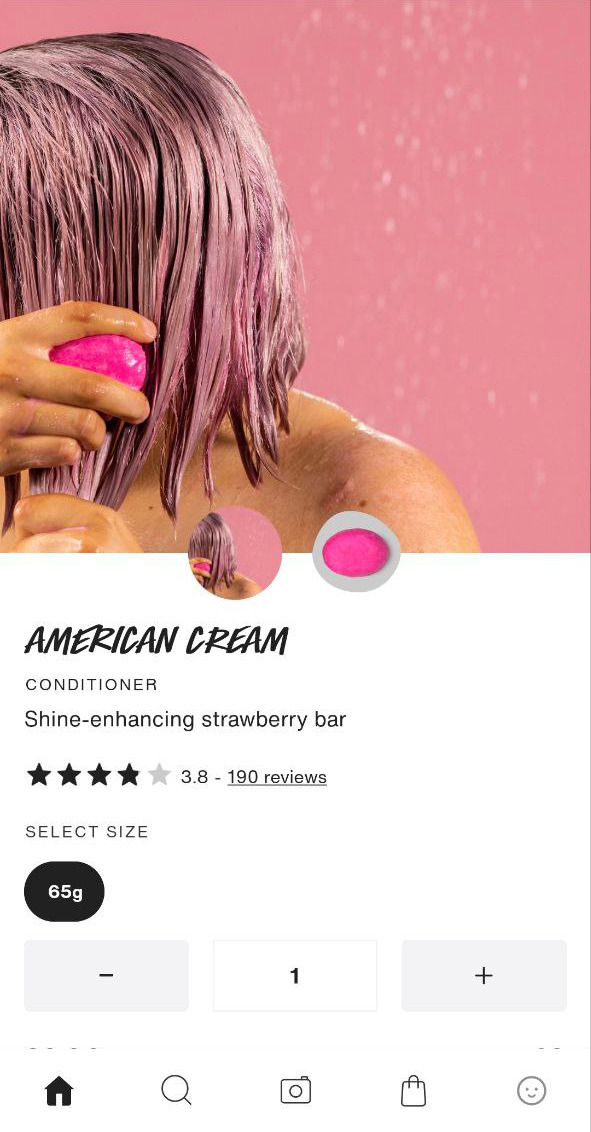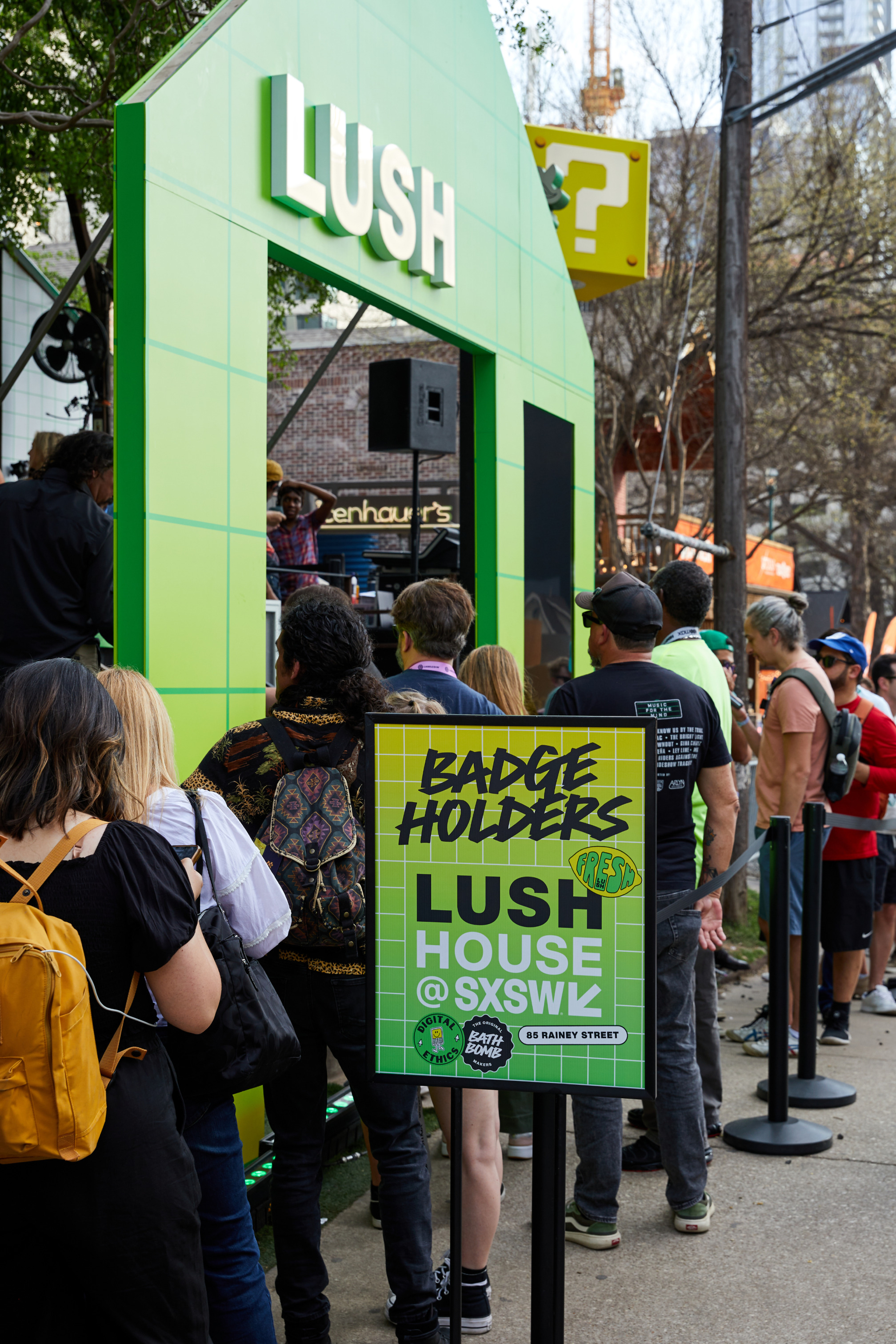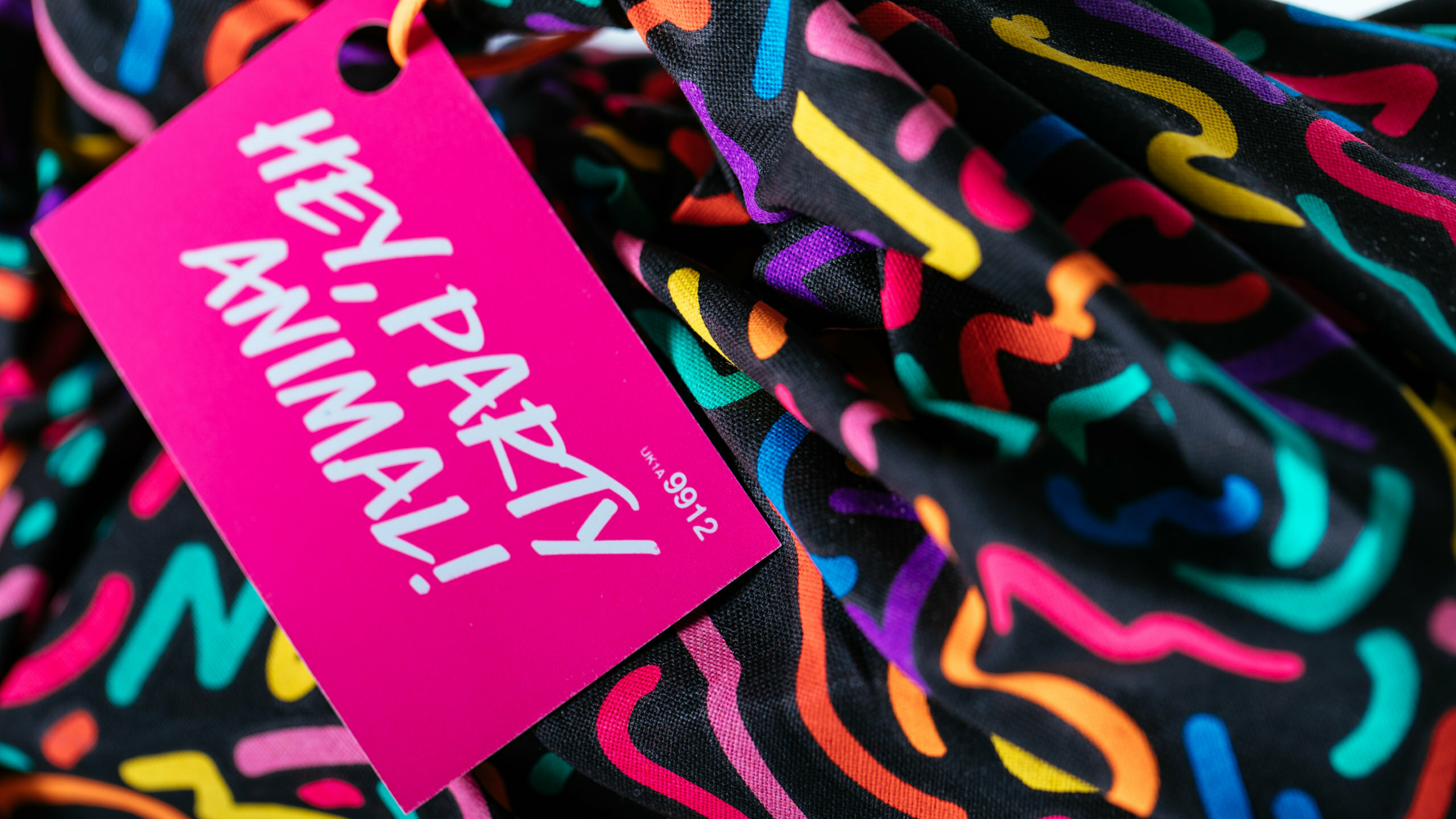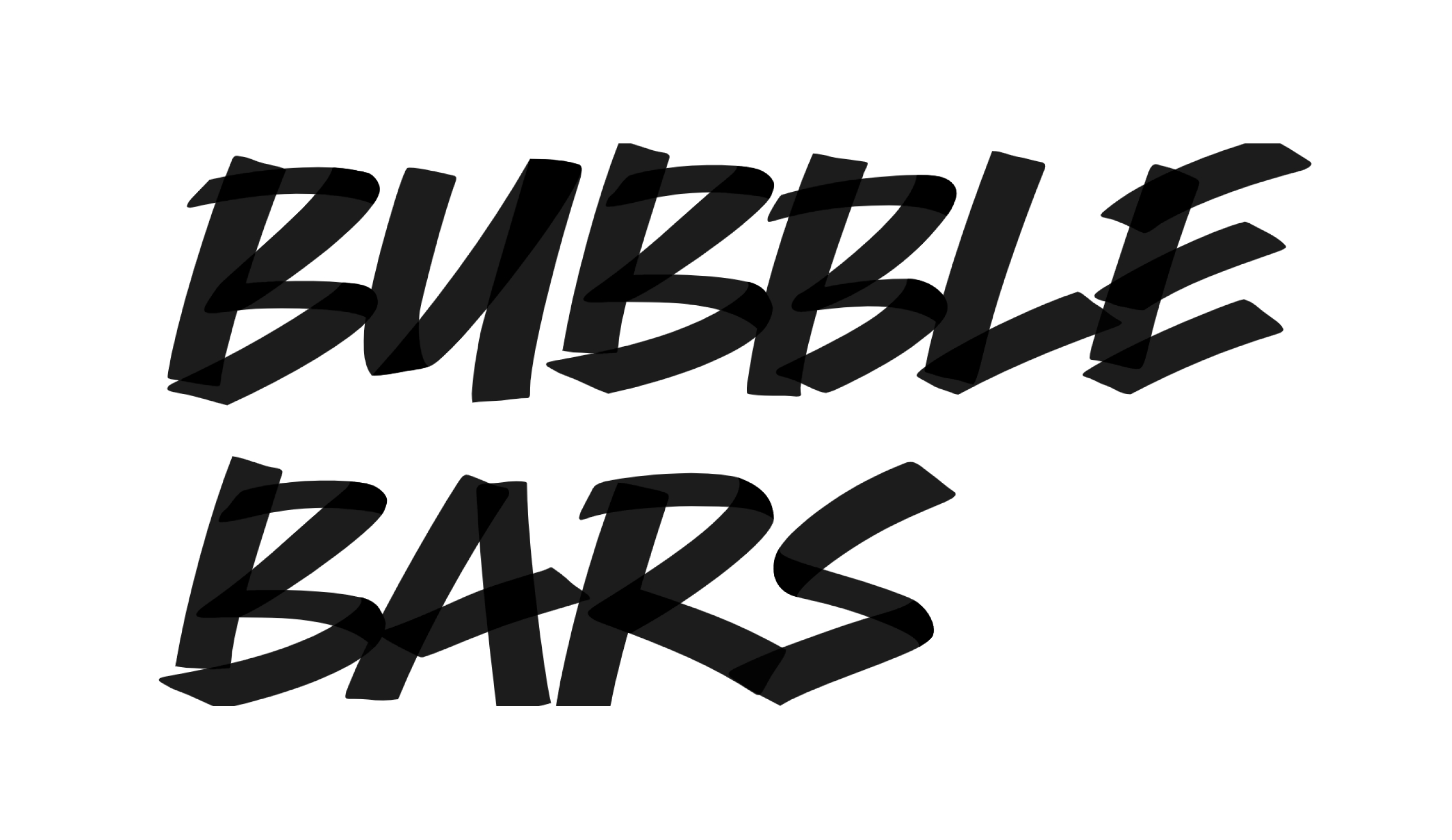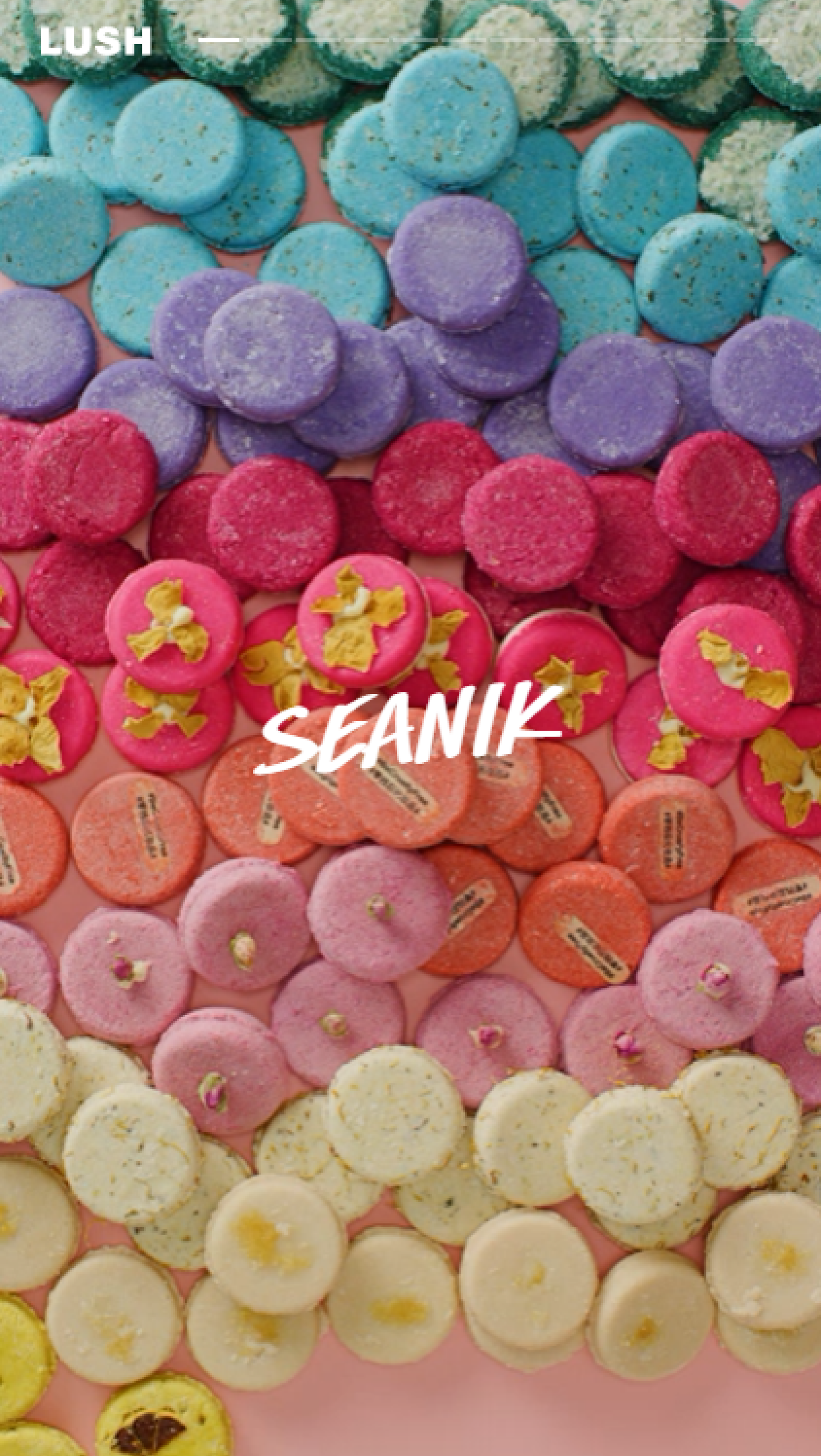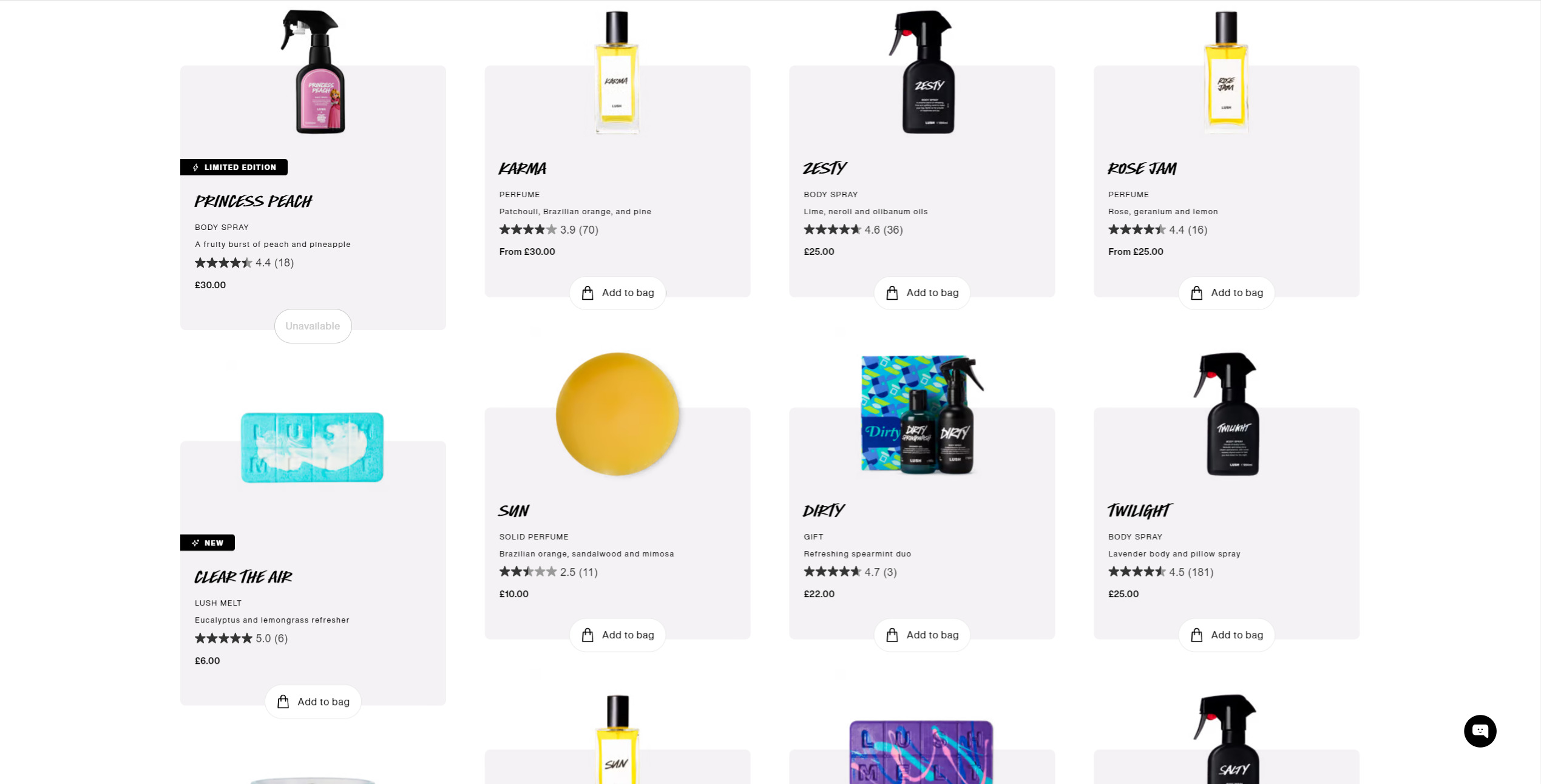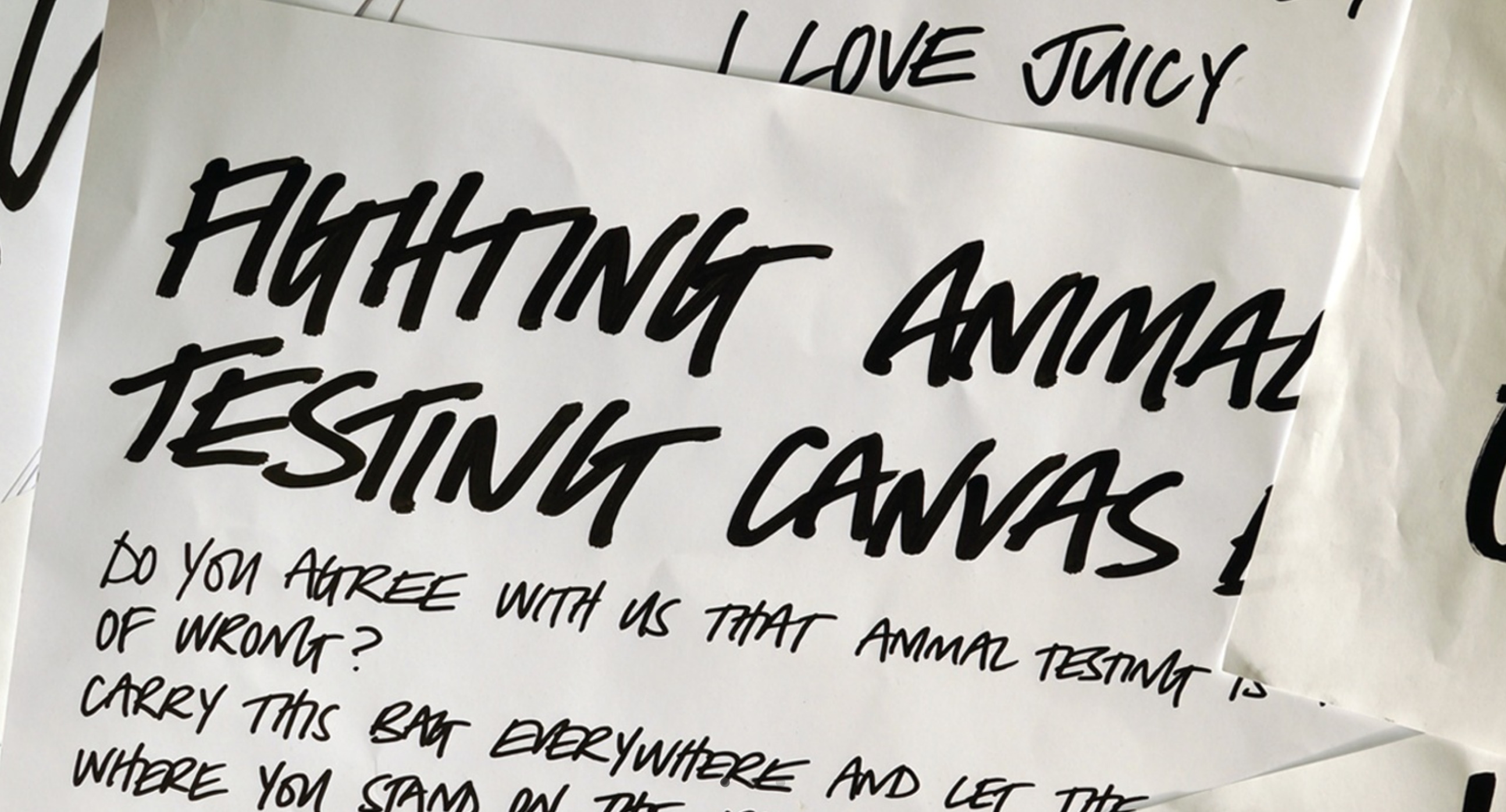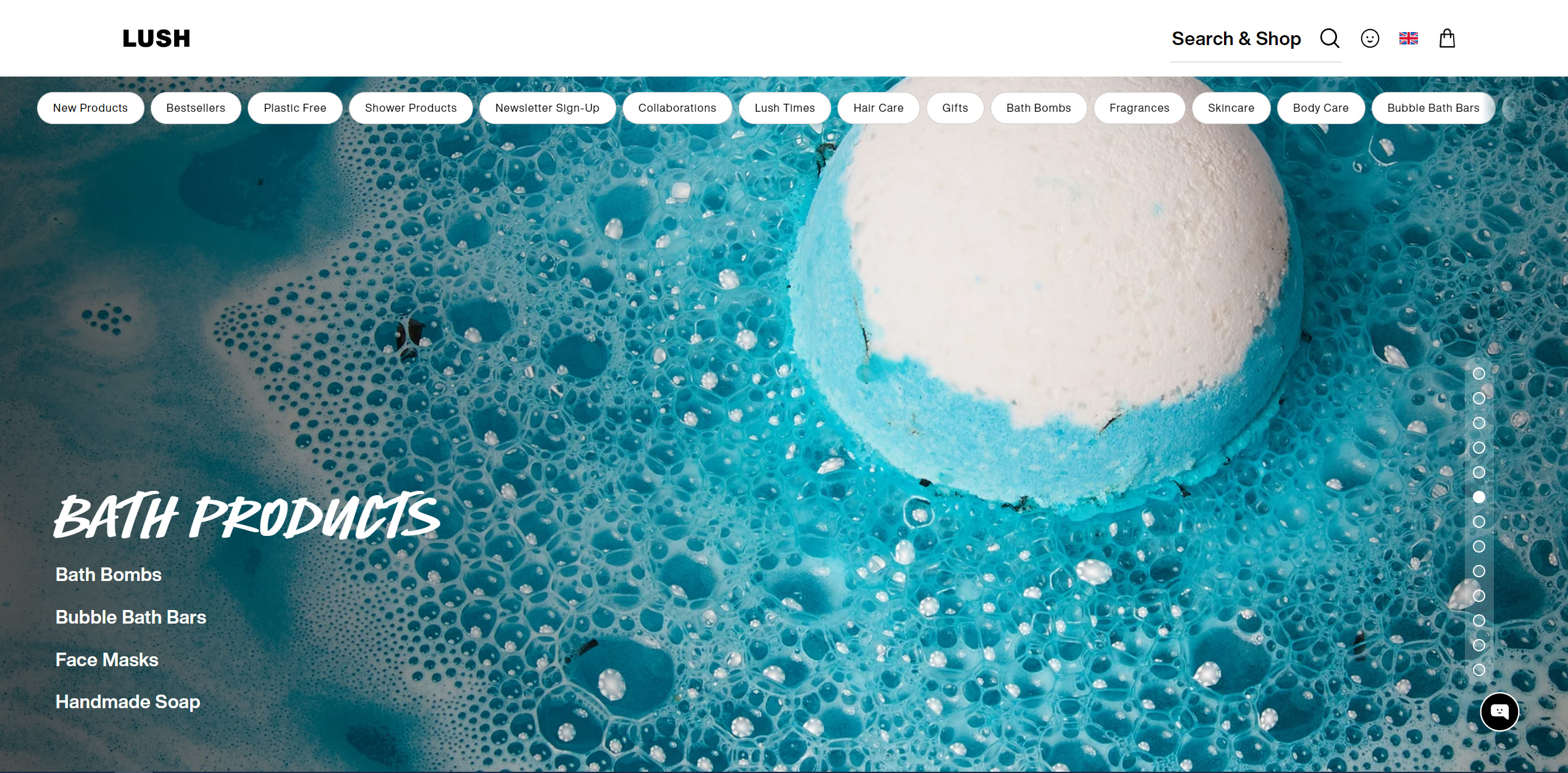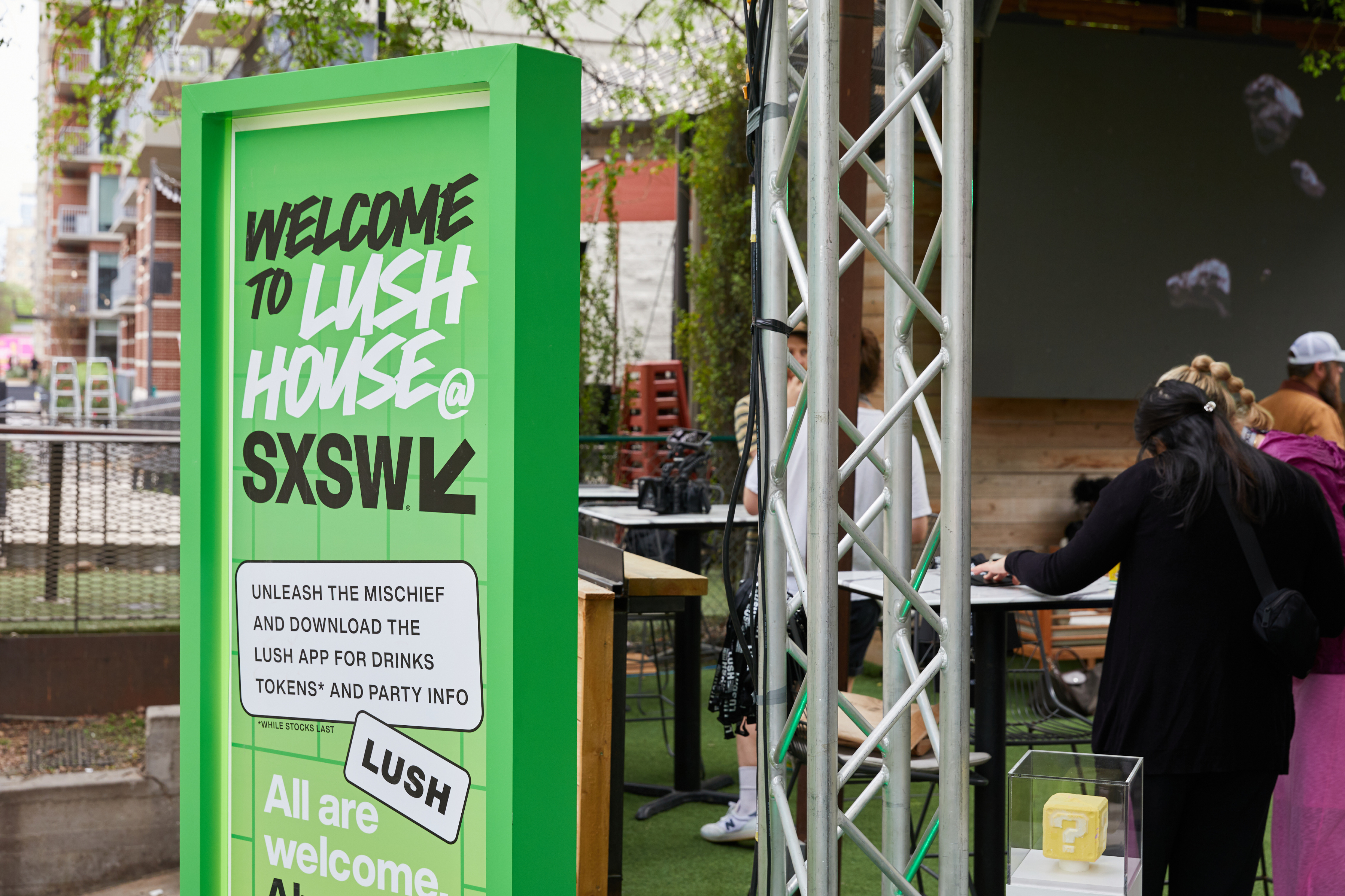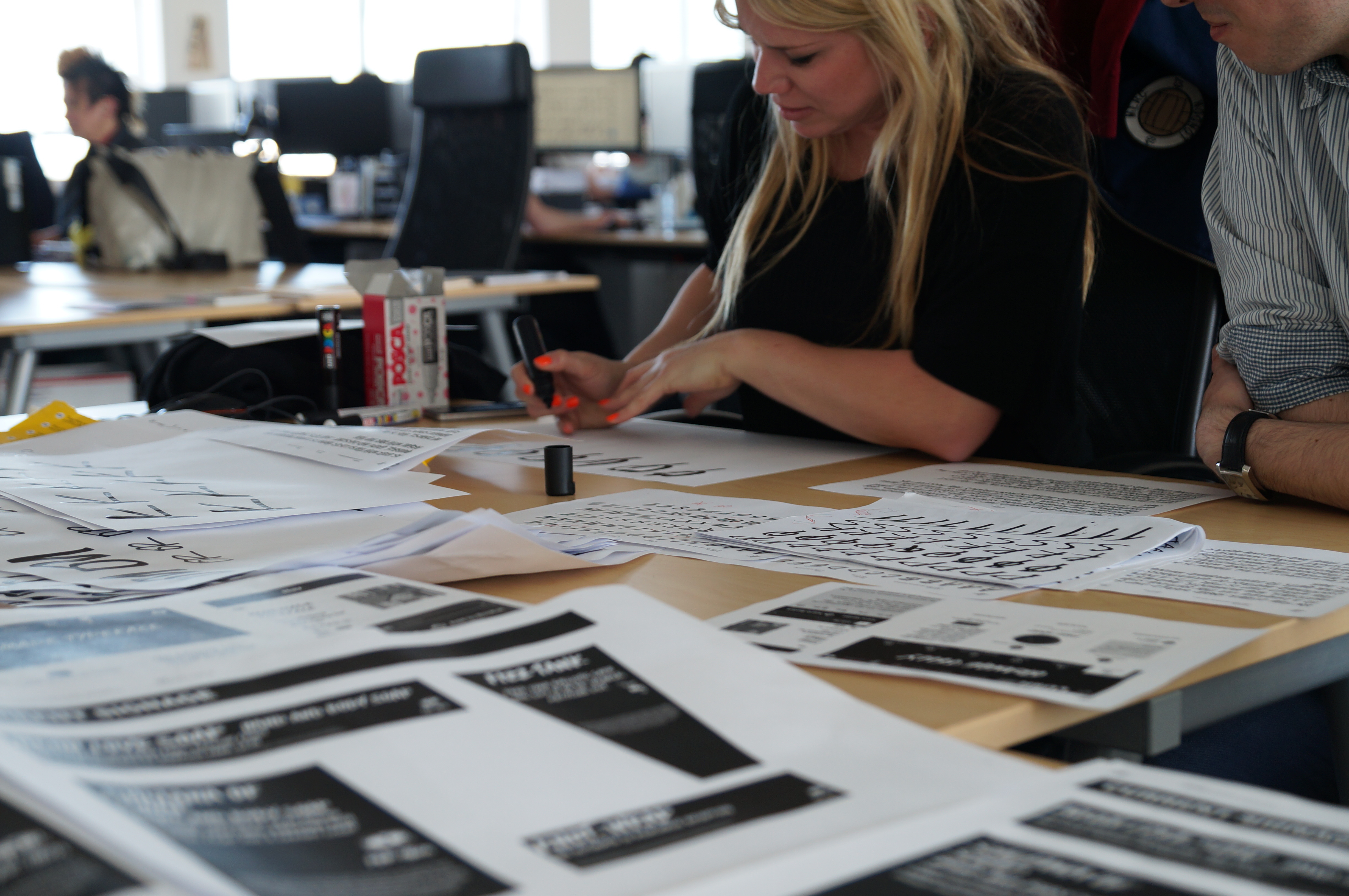
Lush Handwritten
A Custom Font for Lush
Lush Handwritten
A Custom Font for Lush
Lush wanted to capture their unique handwritten chalkboard style as a digital font suitable for all media. Working with their creative team in a series of immersive workshops, we created an authentically organic font suite which retains all of Lush’s signature vibrancy.
Cyrillic, Greek, Latin
Over 110 languages